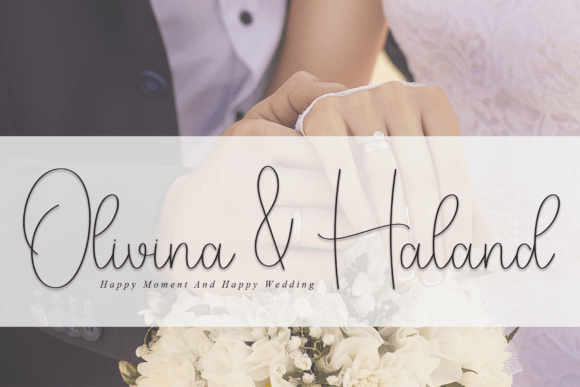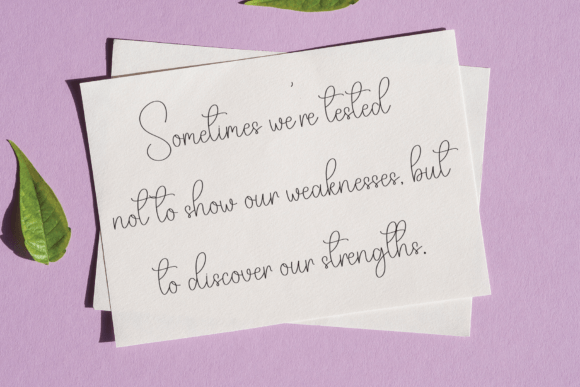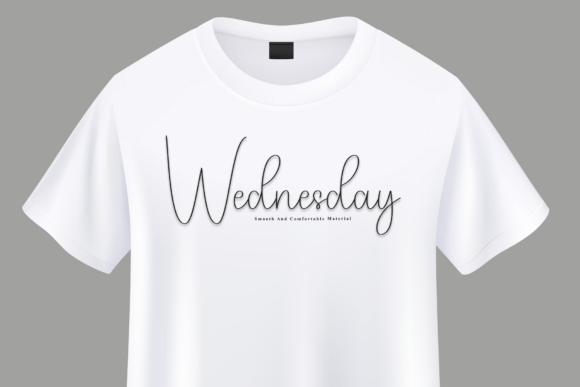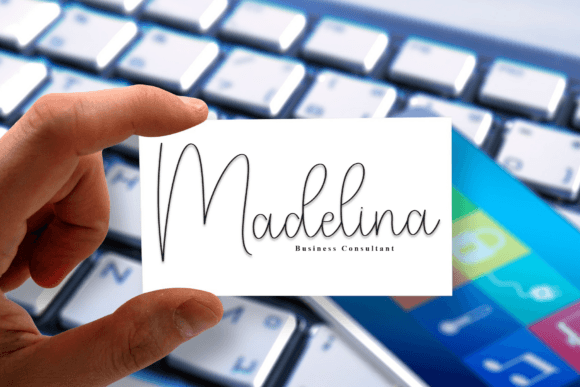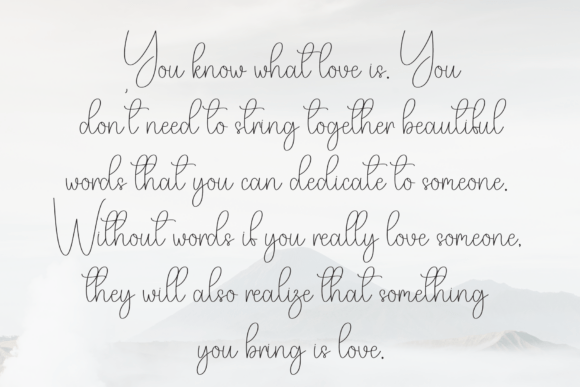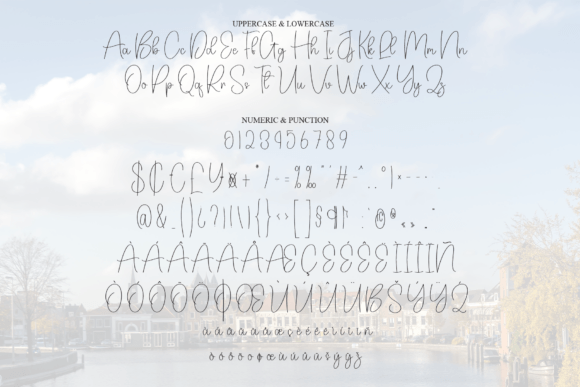
Discover the Charm of Amsterdam Font: Elevate Your Designs with a Personal Touch
Are you tired of using the same old fonts in your designs? Look no further than the Amsterdam Font, a beautiful handwritten script font that adds a natural and elegant style to any project. With its unique, real-handwriting feel, Amsterdam Font is perfect for designers and crafters looking to infuse their work with a personal and creative touch.
The Characteristics of Amsterdam Font
Amsterdam Font boasts a distinctive, handwritten aesthetic that sets it apart from more traditional fonts. Its natural, flowing lines and subtle imperfections evoke the feeling of real handwriting, making it an excellent choice for designs that require a personal touch. Whether you’re working on a logo, invitation, or social media graphic, Amsterdam Font is sure to add a touch of elegance and sophistication.
What Makes Amsterdam Font So Special?
So, what makes Amsterdam Font so special? Here are just a few reasons why designers and crafters love working with this beautiful font:
- Natural and Elegant Style: Amsterdam Font features a unique, handwritten style that’s both natural and elegant. Its flowing lines and subtle imperfections make it look like real handwriting, adding a personal touch to your designs.
- Perfect for Creative Projects: Whether you’re working on a logo, invitation, or social media graphic, Amsterdam Font is the perfect choice for creative projects that require a personal touch.
- Easy to Read: Despite its elegant, handwritten style, Amsterdam Font is surprisingly easy to read, making it perfect for designs that require a clear and concise message.
- Versatile: Amsterdam Font can be used for a wide range of design projects, from digital graphics to print materials.
How to Use Amsterdam Font in Your Designs
Using Amsterdam Font in your designs is easy! Here are a few tips to get you started:
- Pair it with Other Fonts: Amsterdam Font pairs beautifully with other fonts, such as sans-serif fonts like Arial or Helvetica. Experiment with different font combinations to find the perfect look for your design.
- Use it for Headings and Titles: Amsterdam Font is perfect for headings and titles, where its elegant, handwritten style can really shine.
- Add a Personal Touch: Use Amsterdam Font to add a personal touch to your designs, such as in a logo or social media graphic.
Tips and Tricks for Working with Amsterdam Font
Here are a few more tips and tricks for working with Amsterdam Font:
- Experiment with Different Sizes: Amsterdam Font looks great in a variety of sizes, from large headings to smaller body text.
- Pay Attention to Kerning: As with any font, pay attention to kerning (the space between letters) to ensure that your text looks clear and easy to read.
- Use it in Digital and Print Materials: Amsterdam Font can be used for both digital and print materials, making it a versatile addition to your design toolkit.
In conclusion, Amsterdam Font is a beautiful handwritten script font that adds a natural and elegant style to any design project. With its unique, real-handwriting feel and versatile design, it’s perfect for designers and crafters looking to infuse their work with a personal and creative touch. Whether you’re working on a logo, invitation, or social media graphic, Amsterdam Font is sure to elevate your designs and leave a lasting impression.